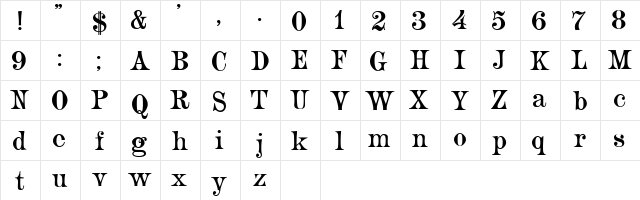
2 Baby Girl DNA Regular
Design Context for 2 Baby Girl DNA Typeface
2 Baby Girl DNA is a composed and adaptable typeface that performs quietly and consistently across a wide range of design contexts.